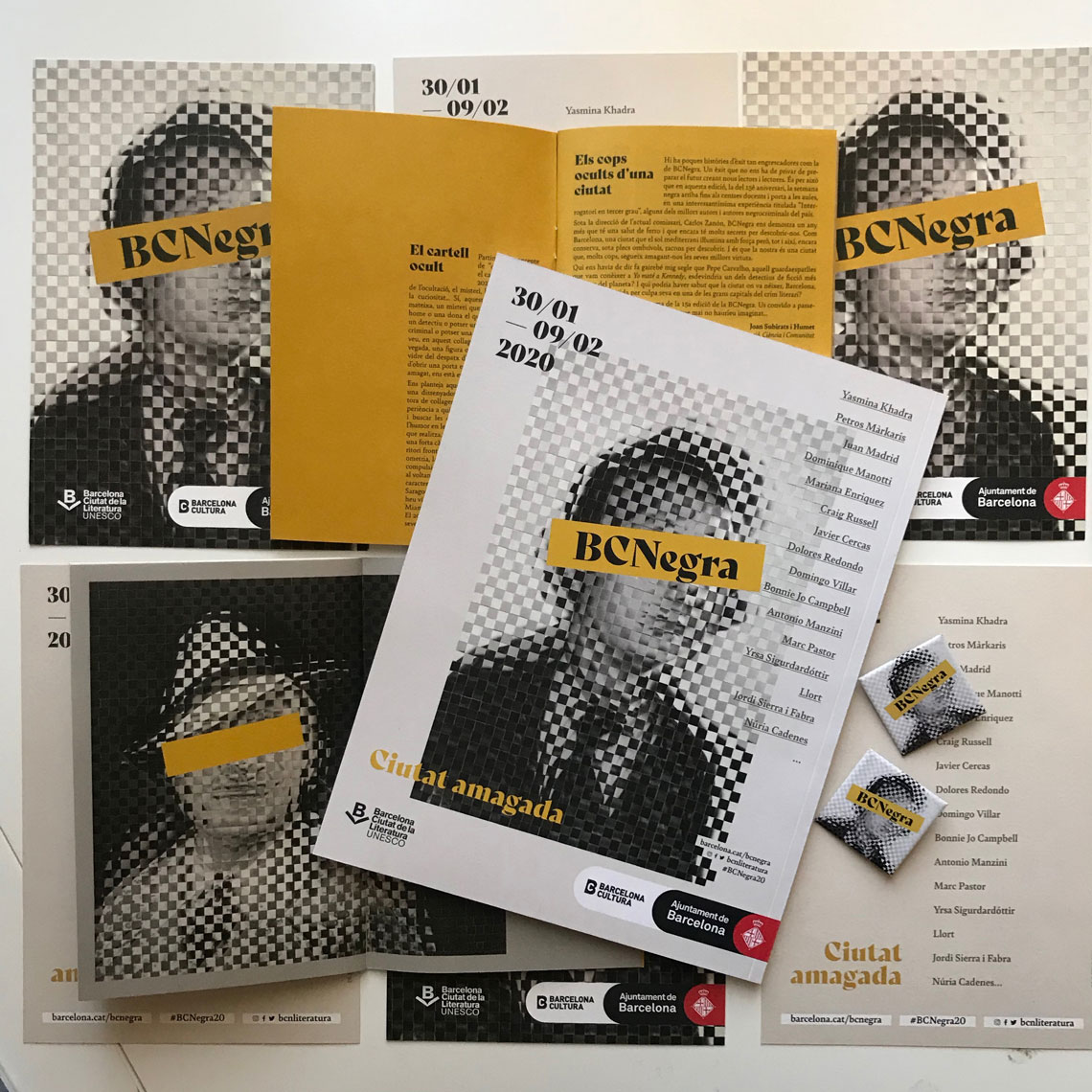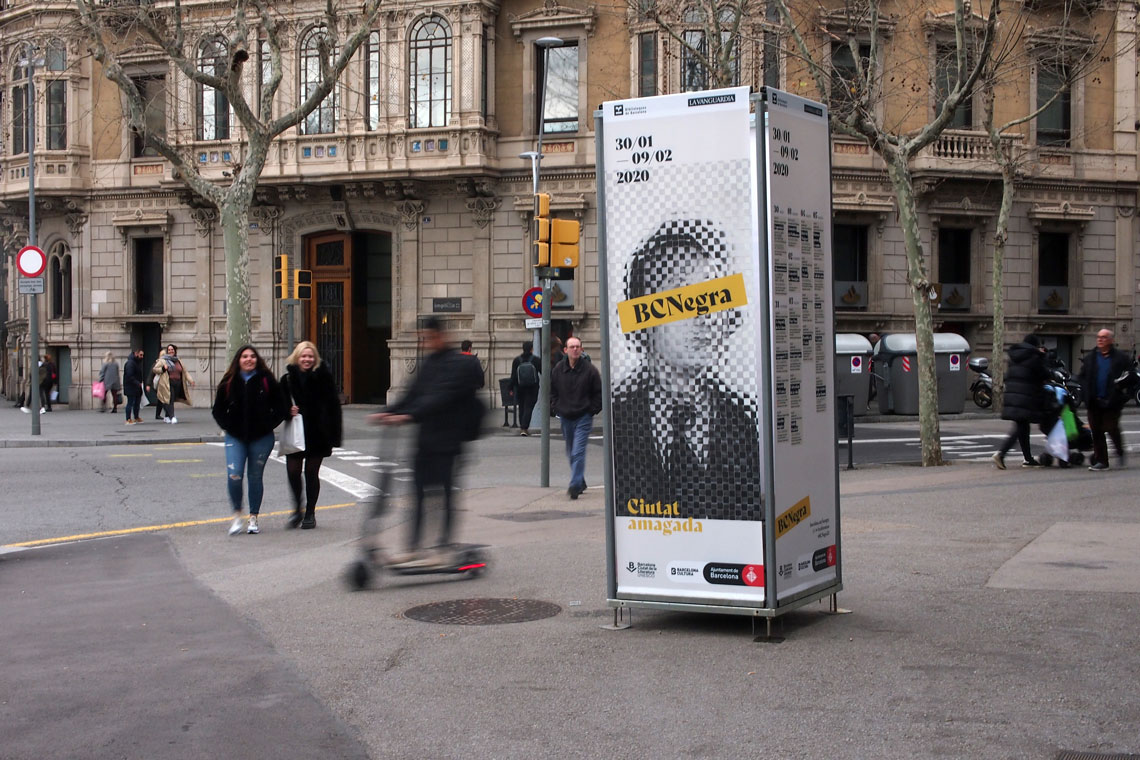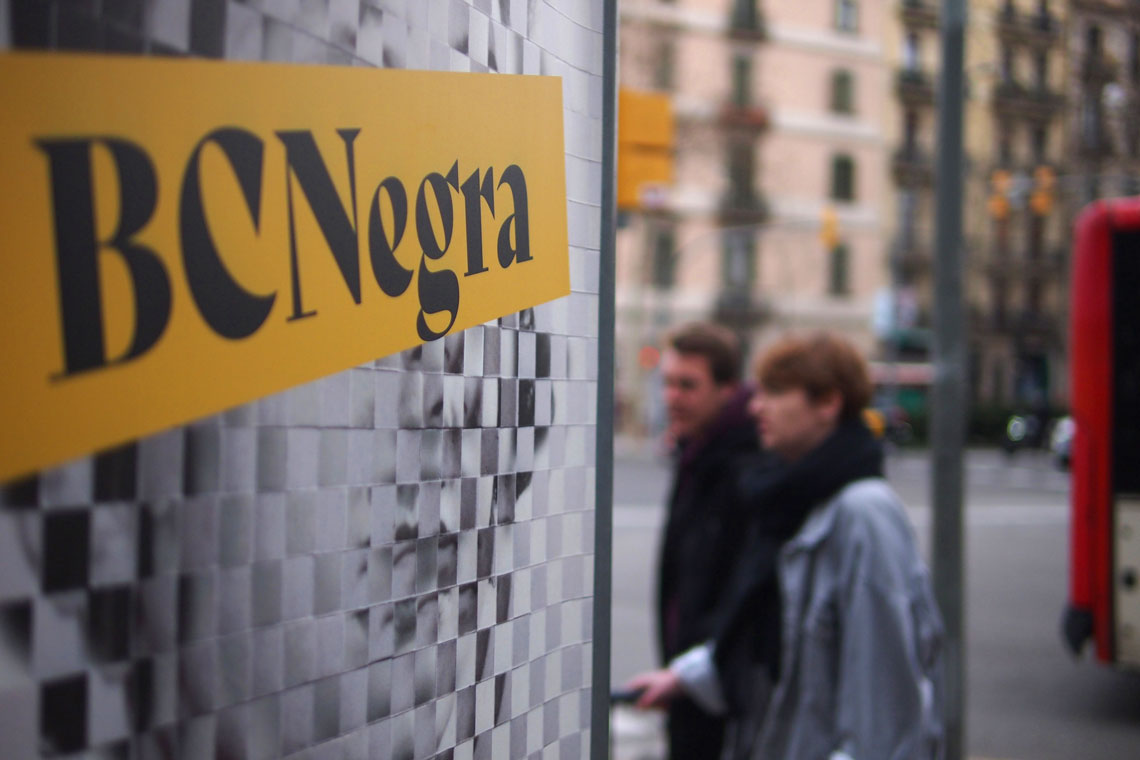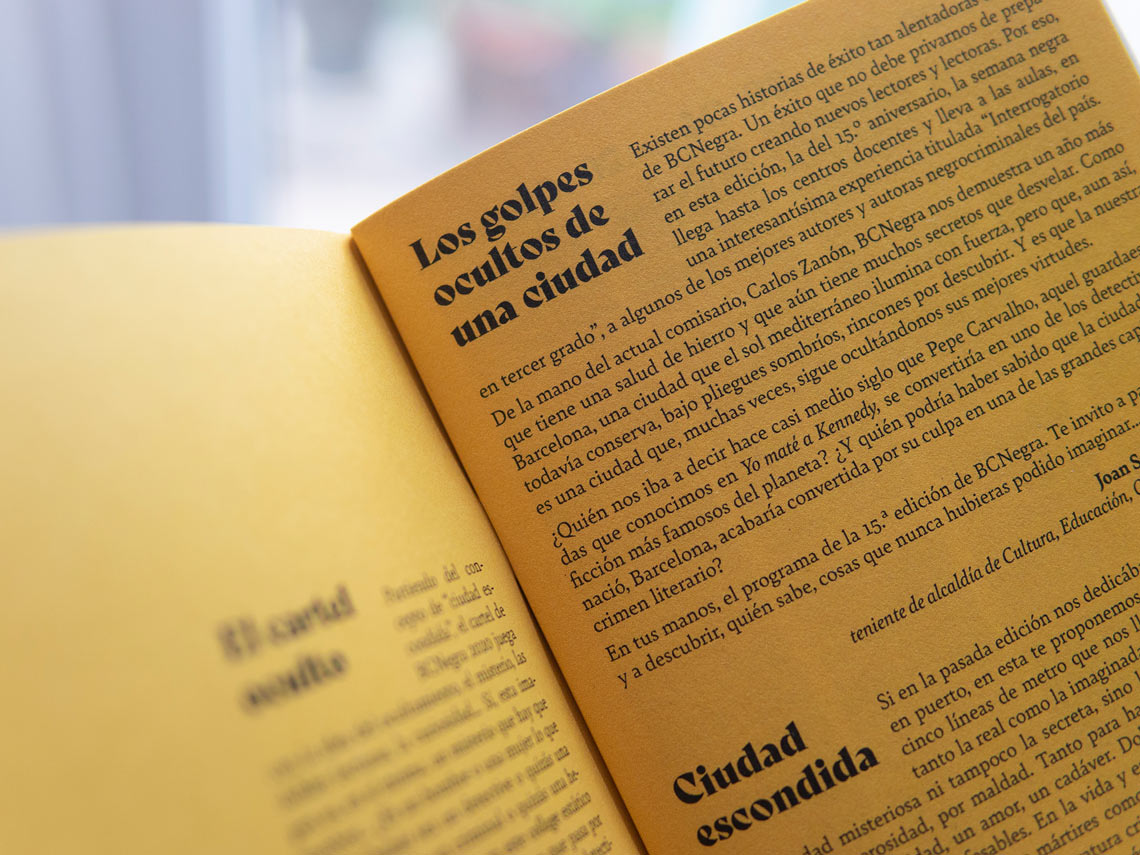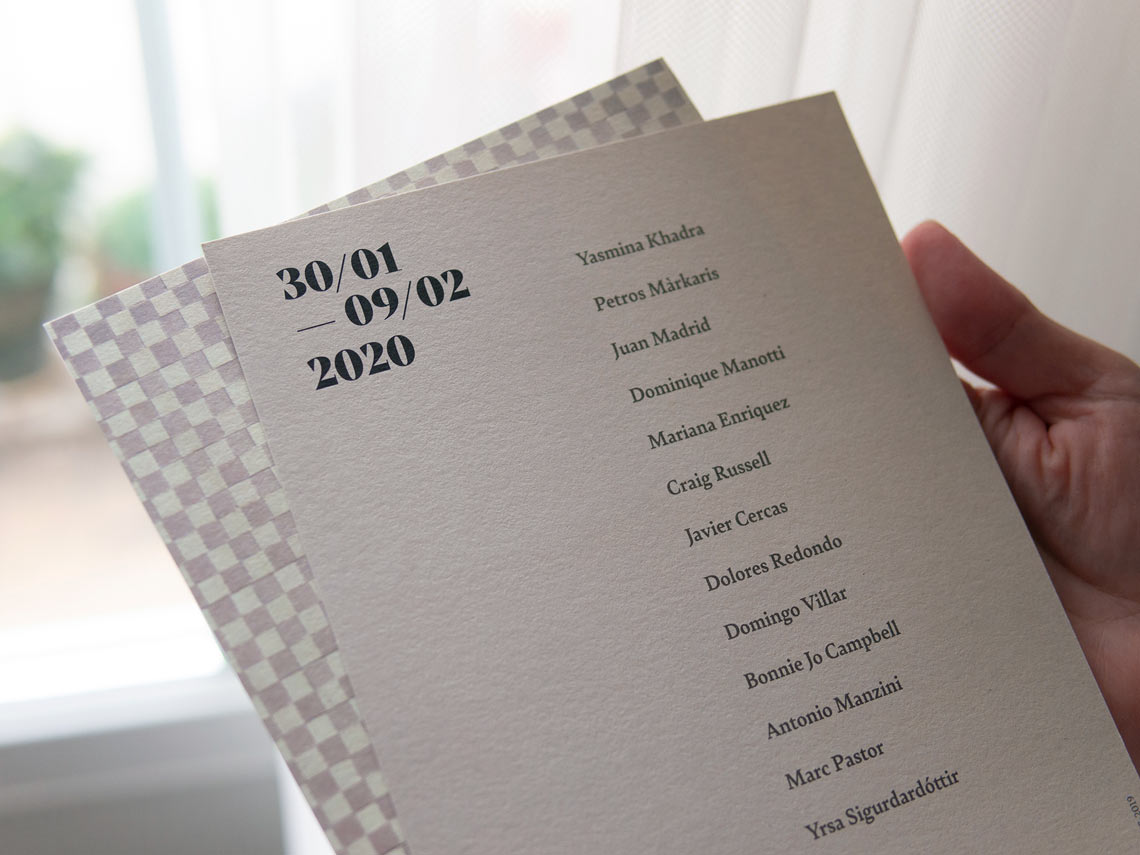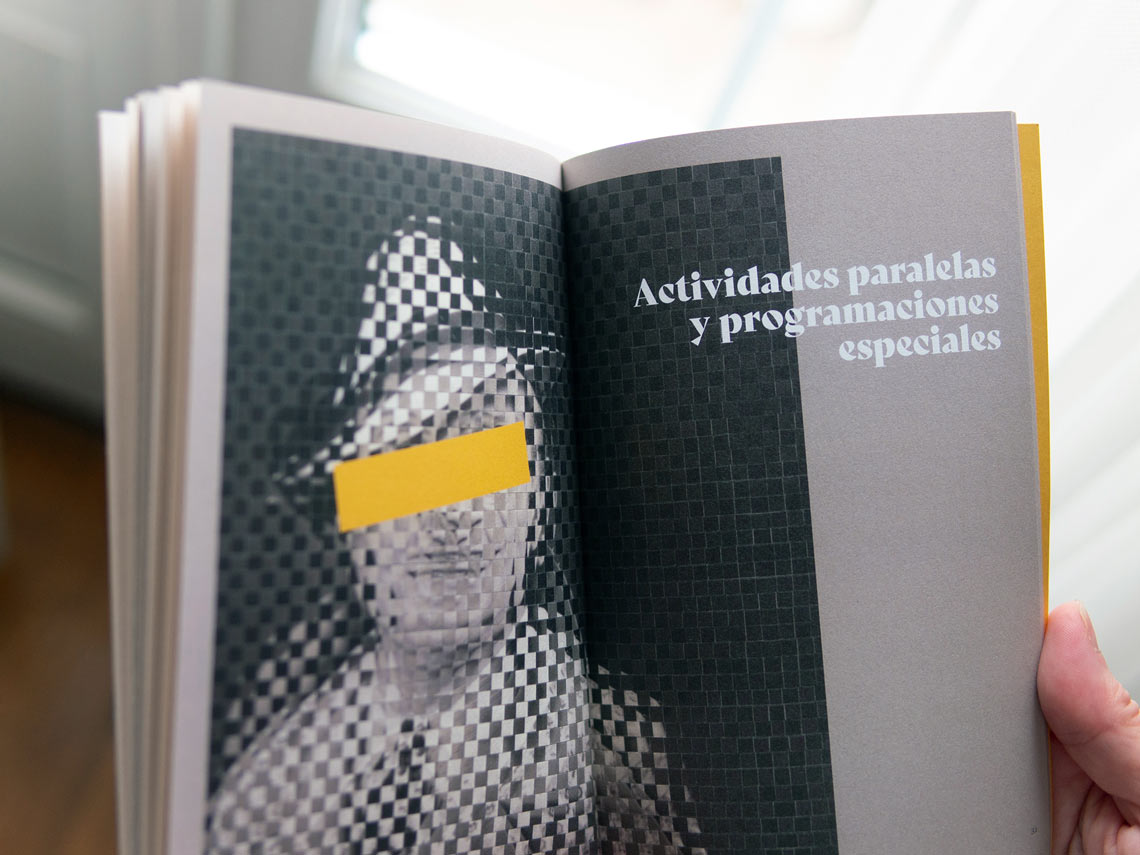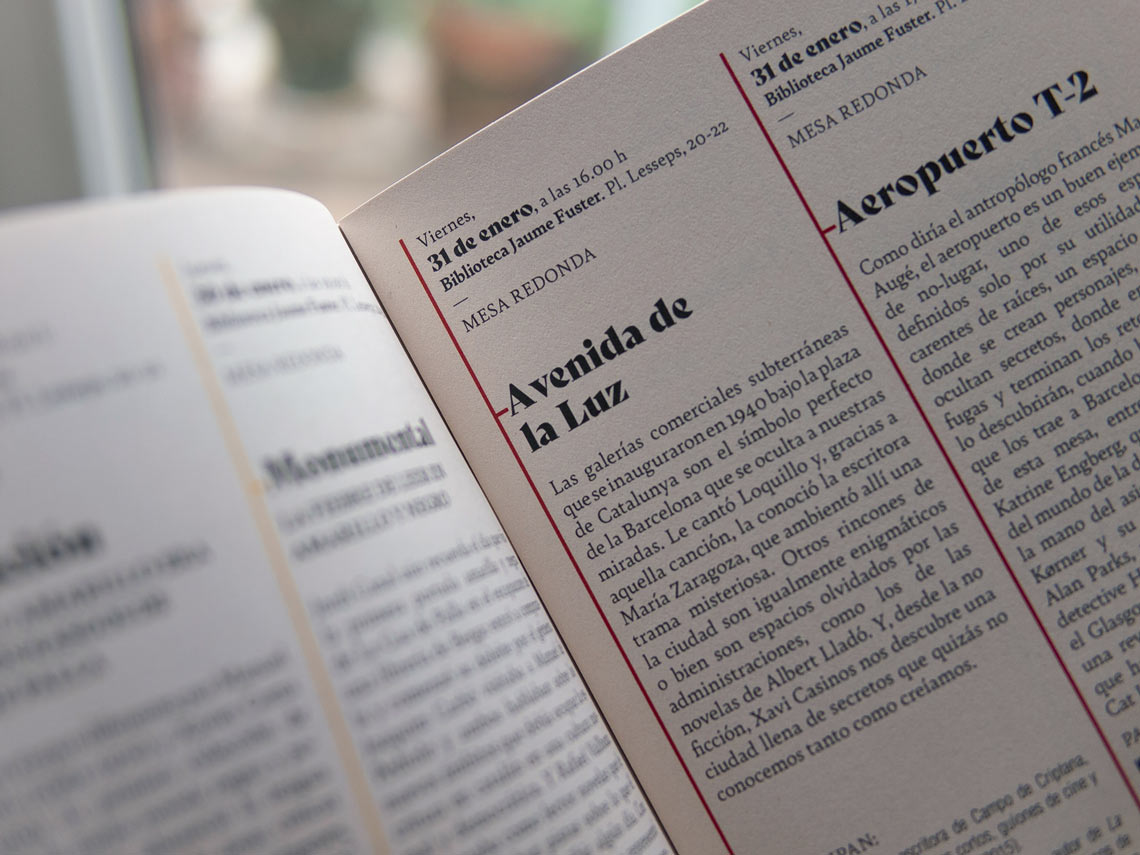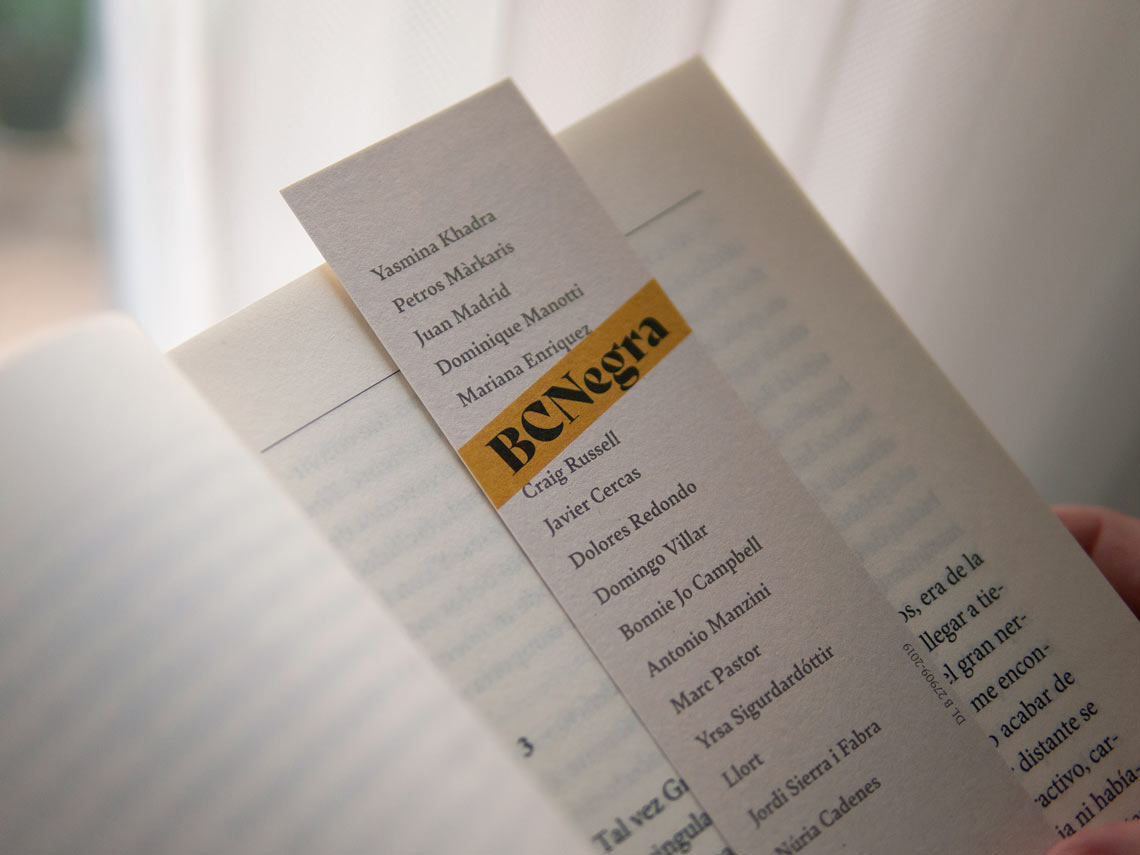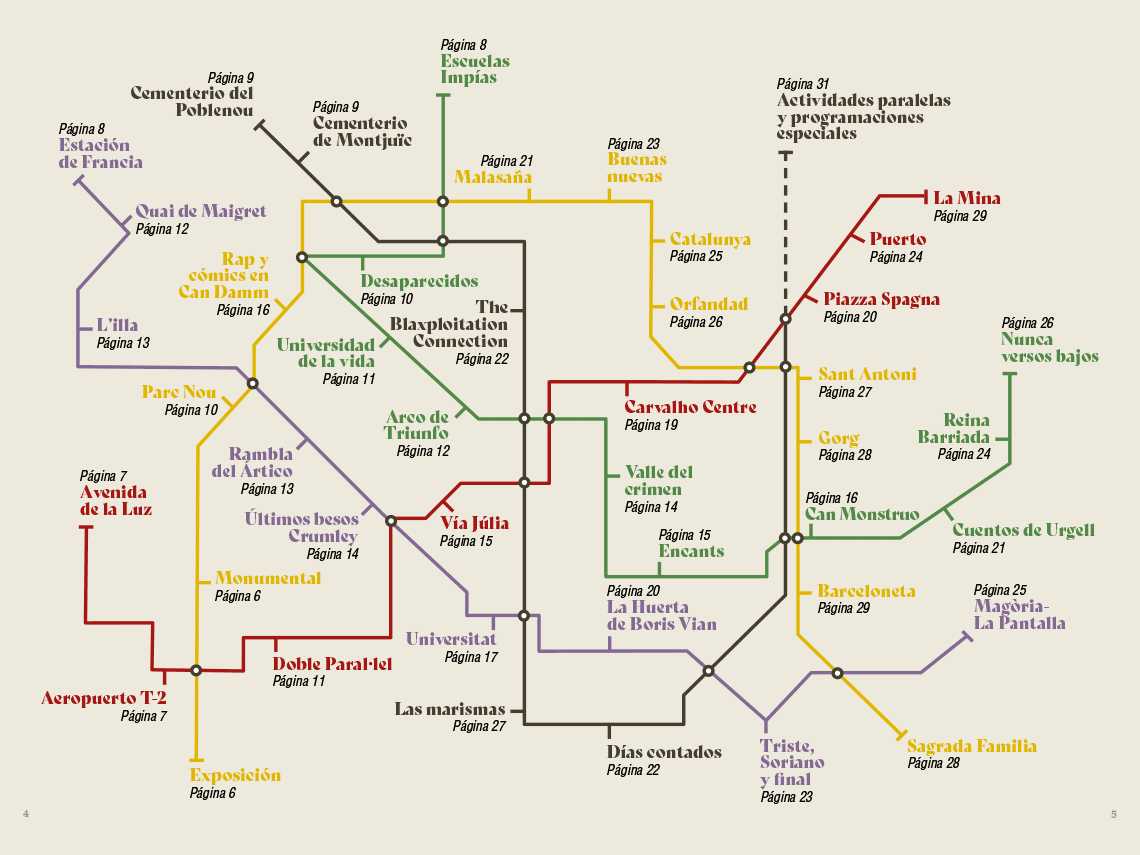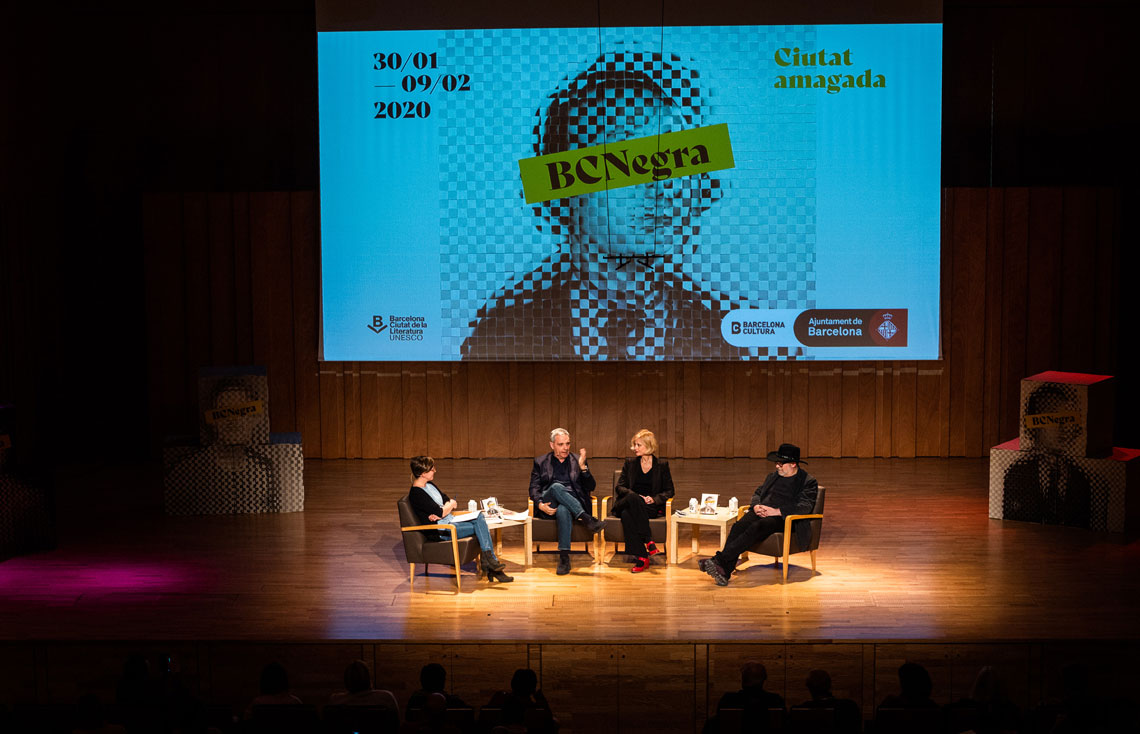
BCNegra
Bely in use in the 20th edition of the literature festival BCNegra, held yearly in Barcelona and devoted to crime fiction.
Susana Blasco is a designer, illustrator, and collage artist from Zaragoza, Spain. Her designs combine personal stories by means of contemporary design and photographic collages that are cut and made by hand. She was responsible for the corporate identity of the 15th edition of BCNegra, a literary festival held annually in Barcelona. The identity combines the handmade touch of collages with the fearless typeface Bely, that reverberates in the display sizes and is a workhorse in the text applications. Roxane Gataud’s Bely Display and Bely Text have been used across a vast range of applications: posters, billboard, magazines, staff cards, video, even a map!
In this edition, the crime fiction book festival’s topic was the “hidden city” (la ciudad escondida), and included roundtables, talks, meetings with authors, exhibitions, reading clubs, book launches, both in large venues and in local libraries and bookshops. Over 50 authors and specialists in detective stories from all over Europe have taken part in the array of activities. For the ten days during the festival, Barcelona was covered in crime and thriller fiction, and, of course, with Bely. The programme PDF can be accessed here.